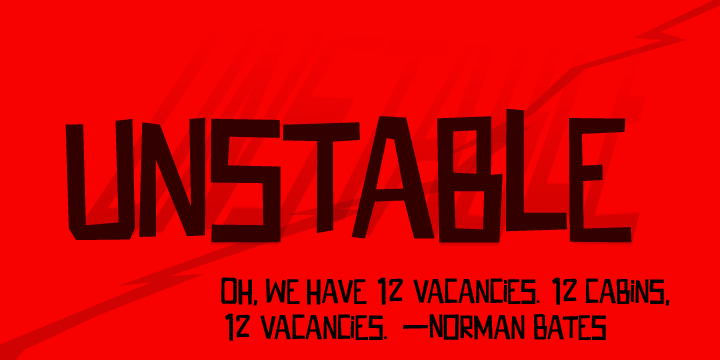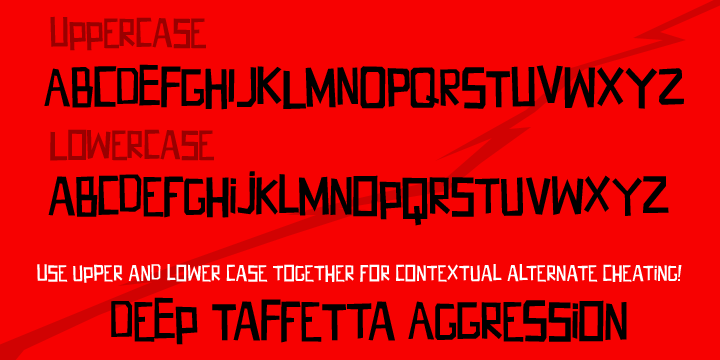
Unstable is a display font published by A New Machine.
This almost-all-caps display font features a variable baseline to give it an unstable look. Also, the upper and lower cases differ slightly and can be used to add some alternates in words with letters next to each other.